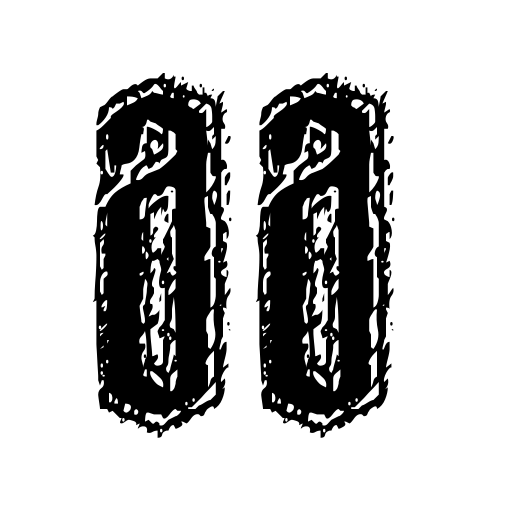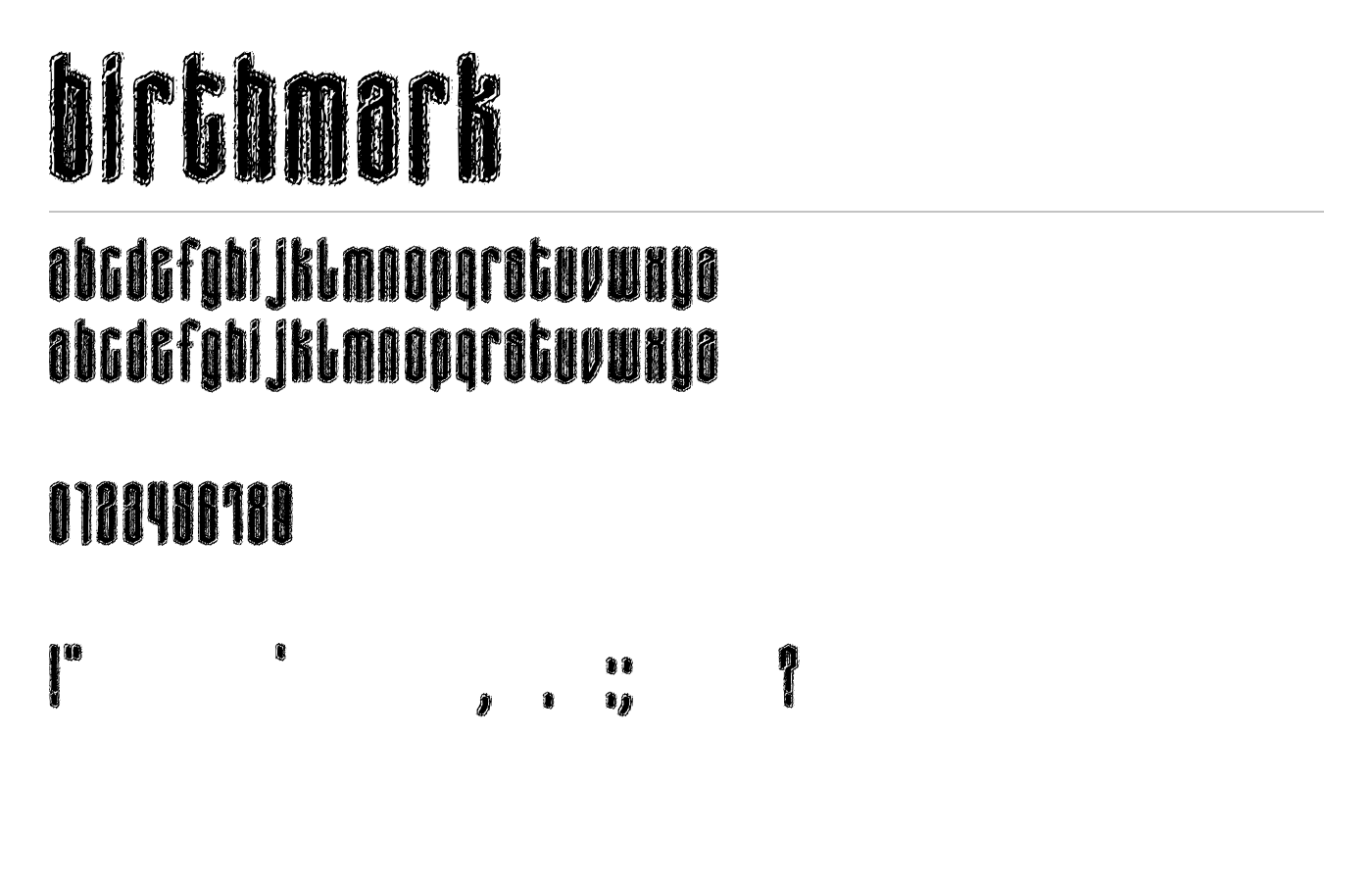
Birthmark is a bold, condensed, sans serif font with a distressed texture that gives it a rough, vintage vibe. Its narrow letterforms and uniform weight make it striking and impactful, perfect for edgy or retro-themed designs. This font works best in headlines, posters, and branding where a strong, gritty character is desired.
Birthmark Font
About Birthmark Font
| Font family | Birthmark Font |
| Designer | Frédéric Rich |